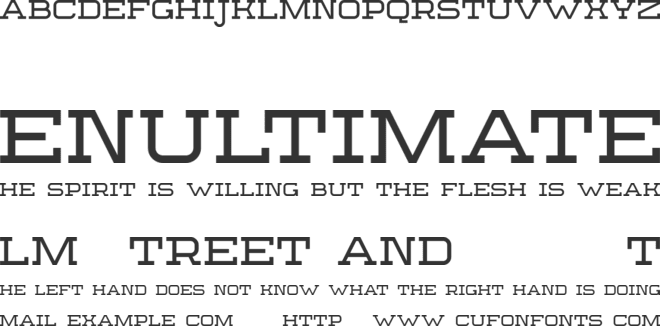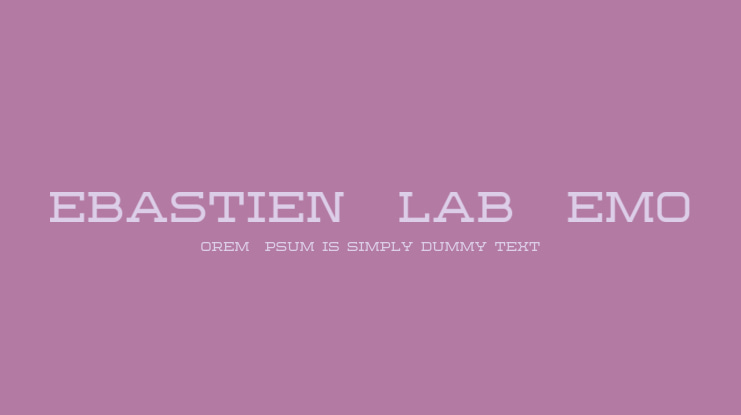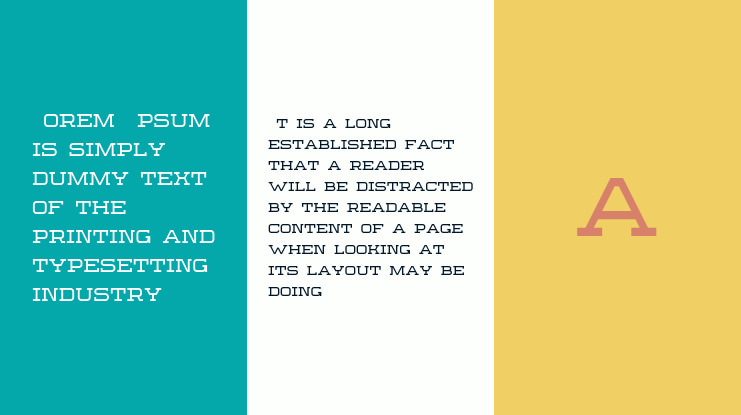
Sebastien Slab Demo Font
Sebastien Slab is an uppercase light slab serif. For the initial release we've built an impressive letter set of 534 glyphs including European special characters, accented letters, and punctuation.